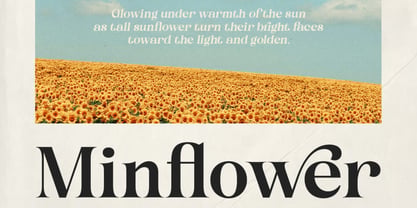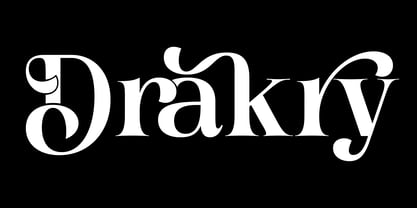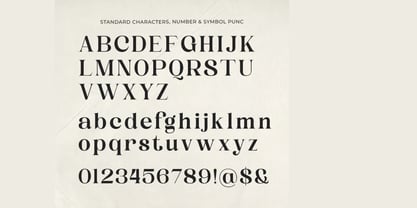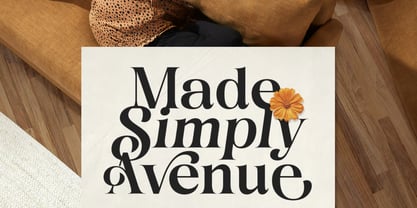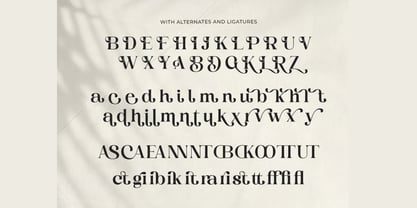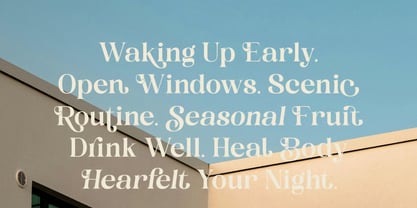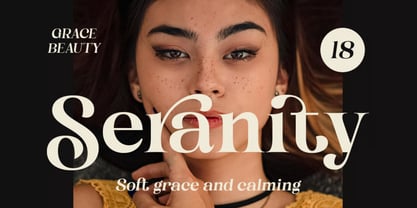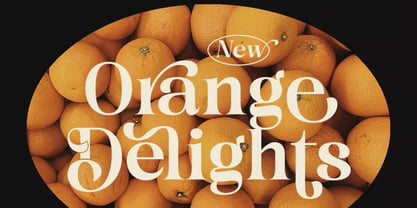
Drakry
The Drakry Font Family was designed by Hasnat Khan and published by Hasnat Studio. Drakry contains 1 styles. More about this family
Drakry is a modern serif typeface crafted with soft curves, expressive details, and a warm, sophisticated aesthetic. Inspired by serene summer moods, luxury editorials, and contemporary design trends, Drakry offers a refined typographic experience that feels both elegant and approachable.
Designed to elevate premium creative projects, Drakry combines graceful letterforms with stylish ligatures and artistic alternates, creating typography that is visually captivating and effortlessly luxurious. Its balanced structure makes it ideal for both bold display applications and refined branding compositions.
Whether you're designing for skincare brands, boutique packaging, resort identities, fashion campaigns, magazine covers, wedding invitations, or upscale advertising, Drakry delivers timeless beauty and professional sophistication in every detail.
✿ Key Features:
• Modern Serif Design: Elegant letterforms with contemporary luxury appeal.
• Soft Curves & Expressive Details: Crafted to create warmth, refinement, and visual harmony.
• Regular & Italic Styles: Flexible font family for versatile design applications.
• Alternates & Ligatures: Stylish OpenType features for unique and creative typography.
• Uppercase & Lowercase Letters: Complete character set for professional use.
• Multilingual Support: Includes accented characters for international projects.
• Premium Editorial Aesthetic: Perfect for luxury and high-end visual communication.
• Optimized for Print & Digital: Excellent performance across all design platforms.
✿ Perfect For:
• Luxury Branding & Logo Design: Build sophisticated and memorable brand identities.
• Fashion & Beauty Campaigns: Ideal for skincare, cosmetics, and premium lifestyle brands.
• Editorial & Magazine Layouts: Perfect for covers, headlines, and feature articles.
• Boutique Packaging Design: Elevate product presentation with refined typography.
• Resort & Hospitality Branding: Create elegant visual identities for travel and leisure businesses.
• Wedding Invitations & Stationery: Add timeless beauty to special occasions.
• High-End Advertising: Deliver stylish and impactful marketing materials.
• Social Media & Digital Content: Create premium and visually engaging designs.
Transform your designs with Drakry—a modern serif typeface featuring elegant ligatures, expressive alternates, and timeless editorial styling. Perfect for luxury branding, skincare packaging, fashion campaigns, resort identities, magazine layouts, invitations, and sophisticated visual storytelling.